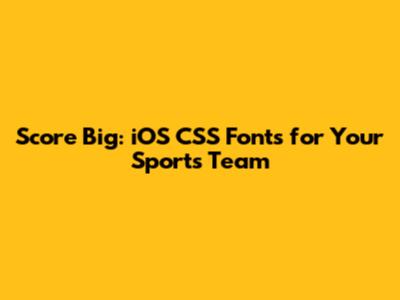
Hey sports fans, are you looking to elevate your team's brand? You've come to the right place. In this article, we're diving deep into the world of iOS CSS fonts and how they can seriously amp up your sports team's visual identity. We'll be talking about everything from picking the perfect font to implementing it seamlessly on your website or app. Trust me, guys, this is a game-changer. Using the right fonts can transform how your team is perceived. It can show professionalism, create a sense of unity, and ultimately, attract fans and sponsors. So, if you're ready to score some serious style points, let's get started.
We'll cover how to choose the right fonts, how to implement them using CSS, and how to troubleshoot common issues. It's all about making your team's brand stand out from the crowd. So, let's explore how to use iOS CSS fonts for sports teams to help their branding reach the next level. Ready to learn how to create a winning visual identity? Let’s dive in!
Choosing the Right Fonts for Your Sports Team
Alright, guys, let's talk about picking the perfect font. This is where the magic happens, and it's super important to get it right. Your font isn't just a collection of letters; it's a statement about your team's personality and values. Before we get into the nitty-gritty of iOS CSS fonts, let’s understand the basic steps of choosing the right fonts for your sports team. Think about your team's overall image. Are you aiming for something modern and edgy, or more traditional and classic? The font you choose needs to align with that. For example, a sleek, sans-serif font might be ideal for a tech-focused team, while a bold, serif font could work well for a team with a long history. You can also research the common fonts that teams are using to see what type of style you're going for.
Consider your target audience, too. Who are you trying to reach? Are you appealing to young fans, seasoned veterans, or both? This will influence the font choices. A younger audience might respond well to a playful, modern font, while an older audience might prefer something more readable and familiar. There are so many kinds of fonts out there, and you should consider what types of feelings you want to portray to your team's fans. A strong font can create feelings of power, while a sleek font can feel more modern. Also, think about readability. Is your font easy to read at different sizes and on different devices? This is especially important for websites and apps. You want your fans to easily understand what you're saying, so choose a font that's clear and legible. Don't go with something too fancy or stylized that's hard on the eyes. Also, consider the font's availability. Does the font have different weights and styles (bold, italic, etc.)? This gives you more flexibility in your design. If you're designing a website or app, ensure the font is web-safe or that you can easily embed it. Web-safe fonts are the ones that are installed on most devices and are available to use right away.
So, before you start implementing those iOS CSS fonts, think about the fonts that other teams are using. Are they using the same font? What type of feeling do those fonts provide? Use these tips as a foundation for your choices and find a font that speaks to the essence of your team and your fans.
Implementing Fonts with iOS CSS
Alright, now that you have picked the perfect fonts, it's time to learn how to make them work in your team's iOS environment. This is where iOS CSS comes in, and it's actually pretty straightforward. First things first, you'll need to use the @font-face rule. This is how you tell your CSS where to find the custom font files. You'll need the font files themselves, usually in formats like .ttf, .otf, or .woff. Upload these files to your server or include them in your project's assets. In your CSS file, use the @font-face rule to define the font.
Next, you'll need to apply the font to the elements on your website or app. You can do this by using the font-family property. Use the name you gave your font in the @font-face rule. Apply this property to the specific elements where you want the font to appear, such as headings, paragraphs, or buttons. Remember to test your implementation on different devices and browsers to ensure everything looks as intended. Also, ensure that your font is rendering correctly in all instances. To ensure you have successfully implemented the font, you can use the inspect tool in your browser to confirm that the CSS is correctly applied. There are also font testing tools that can assist in determining whether the font is rendering correctly.
Consider using CSS classes to apply fonts consistently throughout your design. This saves time and ensures that changes are reflected everywhere. For example, you can create a class for headings and apply it across the board, making it easy to change the font style in one place. Don't forget about font sizes and weights. Choose sizes that are readable and weights that enhance the design without overwhelming the viewer. You can also use various online resources to check the readability of your font choices.
Troubleshooting Common Font Issues in iOS
Even the best-laid plans can go sideways sometimes. So, here's the lowdown on fixing common font issues you might run into when using iOS CSS fonts. One of the most common issues is font not displaying correctly. If your custom font isn't showing up, double-check the file paths in your @font-face rule. Make sure they're correct and that the files are actually where you think they are. Ensure the file formats are compatible with iOS. Also, clear your browser's cache and refresh the page. Sometimes, outdated cached files can cause fonts not to load correctly. Another issue could be font rendering inconsistencies. Fonts can render differently across various browsers and devices. To tackle this, test your design on various platforms to make sure it looks consistent.
Another thing to consider is font licensing. Make sure you have the proper licenses to use the fonts you've chosen, especially if you're using them commercially. You don't want any legal headaches down the road. Also, consider performance issues. Large font files can slow down your website or app. Optimize the font files by using tools to compress them without losing quality. This will help improve loading times. If you're using a font from a third-party service, make sure the service is reliable. Downtime on their end can cause your fonts to disappear. Always have a backup plan. In the iOS CSS fonts realm, preparation and attention to detail are key. So, ensure your fonts are optimized, licensed, and implemented correctly. By following these tips, you'll be well on your way to creating a winning visual identity for your team. You can also consult online communities and forums. Other developers can provide valuable insights and solutions to problems you might face. Also, be sure to always check the documentation for your specific font. Some fonts have unique implementation requirements.
Advanced Tips and Techniques
Alright, let's level up your font game with some advanced tips and techniques for iOS CSS fonts. First off, let's talk about font pairing. Choosing the right font combinations can dramatically enhance your team's brand. The goal is to create a visually appealing design that's easy to read and reflects your team's style. Experiment with font pairings. You want to pair your fonts for headings, and body text is important. Use online tools to explore font pairing possibilities. These tools can suggest great combinations based on different fonts. Now, let's discuss font loading strategies. This ensures that your fonts load quickly and efficiently. Consider using techniques like preloading fonts to get a head start on loading and improve your website's performance. You can also prioritize loading fonts that are essential for the initial page view. This improves the perceived performance of your website and gives your audience a better user experience.